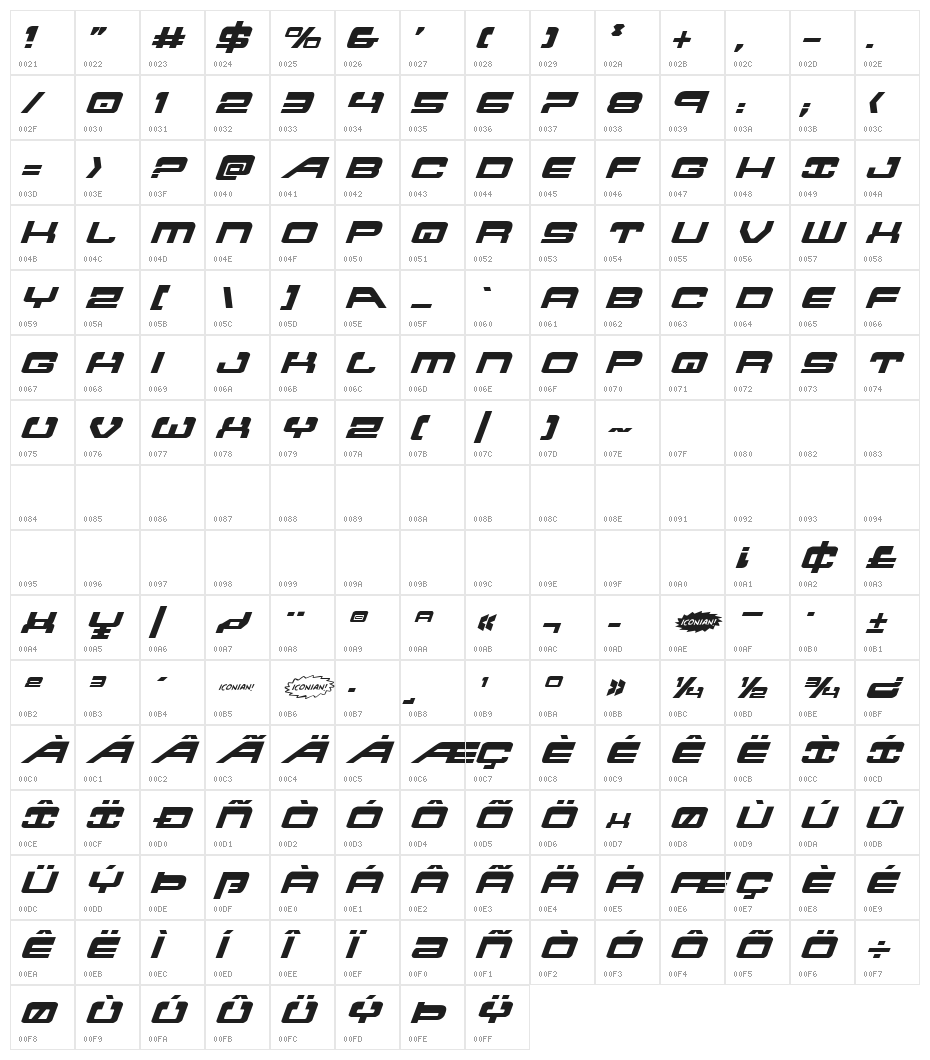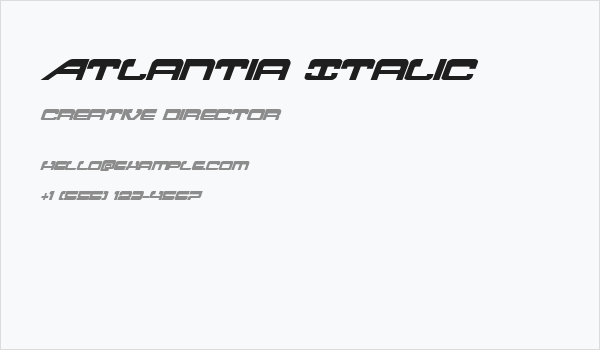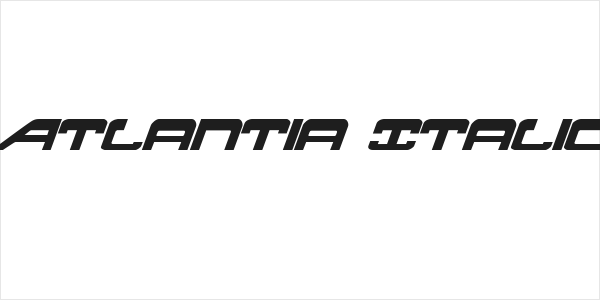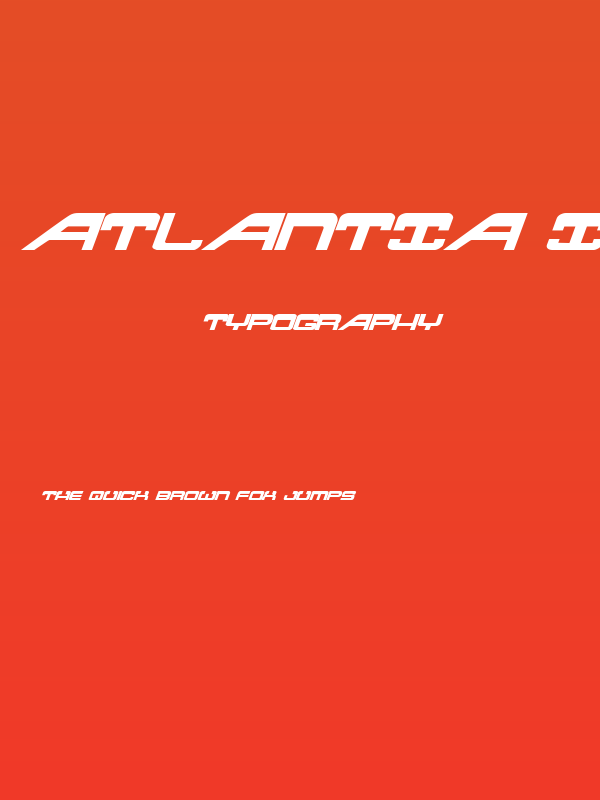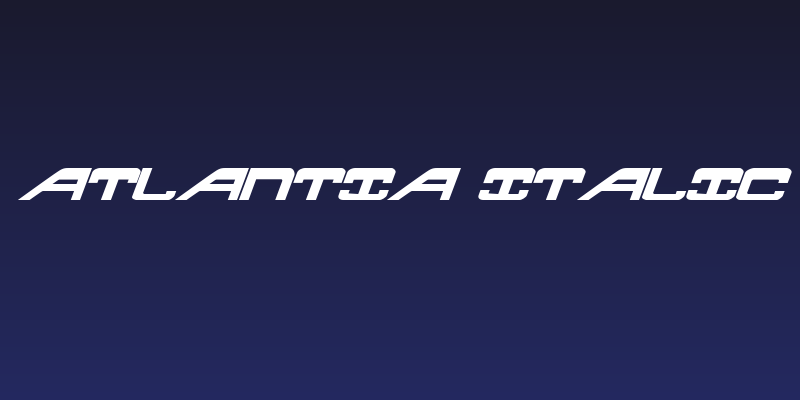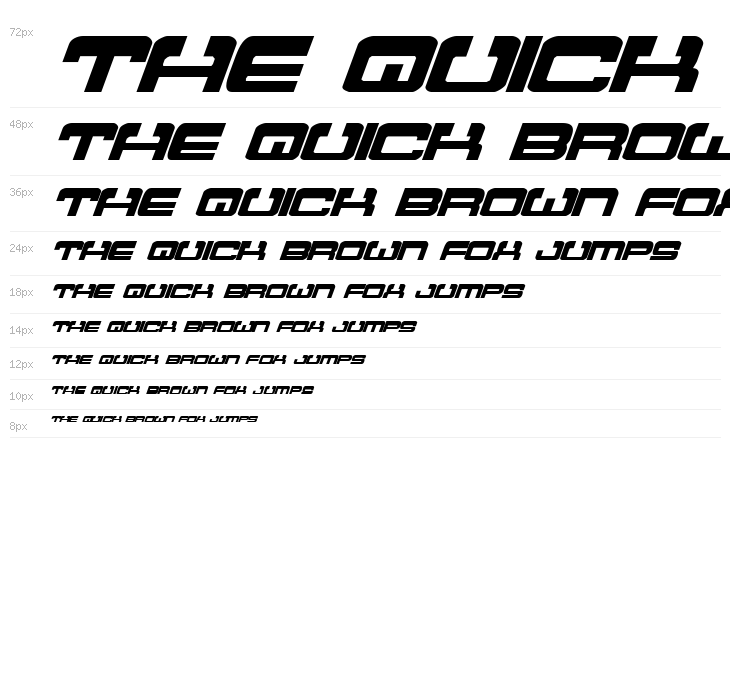
Atlantia Italic Font
Atlantia Italic Description
This font features a sleek, futuristic design with a strong italic slant, giving it a sense of motion and speed. The characters are bold and angular, with sharp edges and a geometric structure that enhances its modern appeal. The uppercase and lowercase letters maintain a consistent style, while the numerals and special characters integrate seamlessly with the overall design. The font's dynamic appearance makes it ideal for projects that require a contemporary and energetic look.
| Proposed Projects | Ideal for technology branding, sports team logos, automotive advertisements, and sci-fi themed designs. |